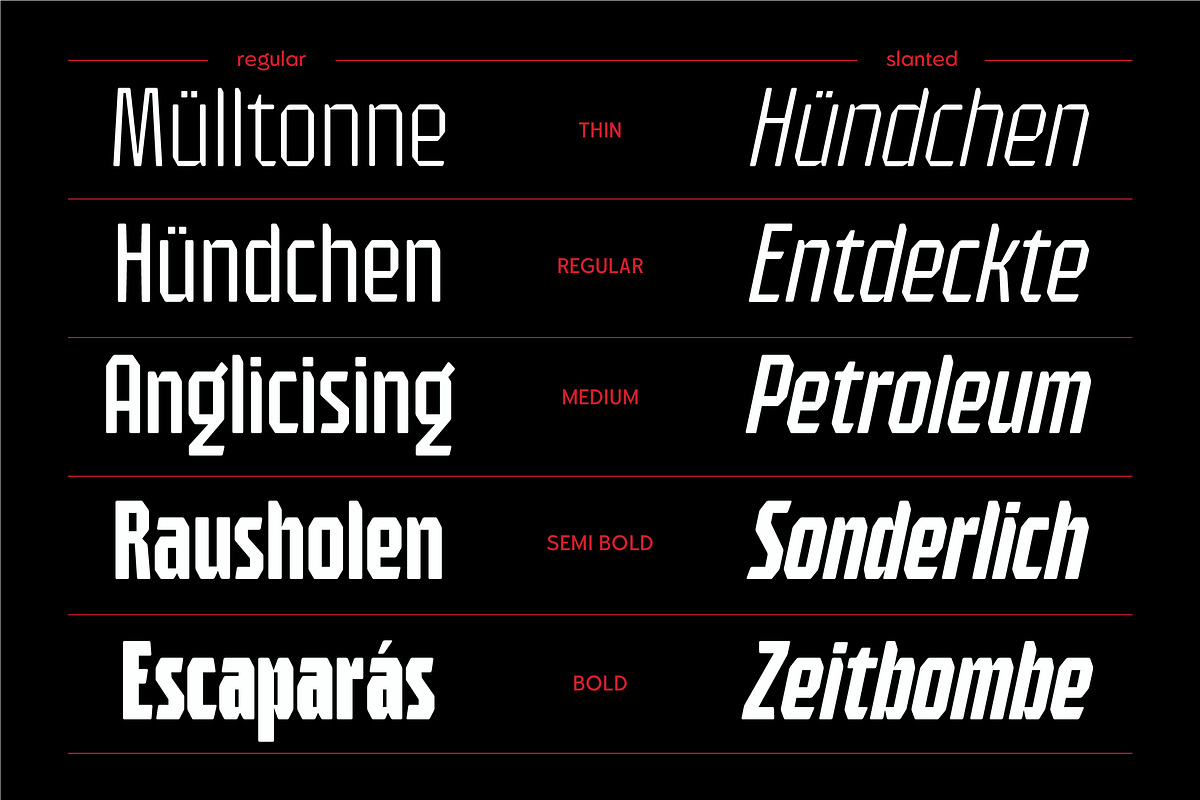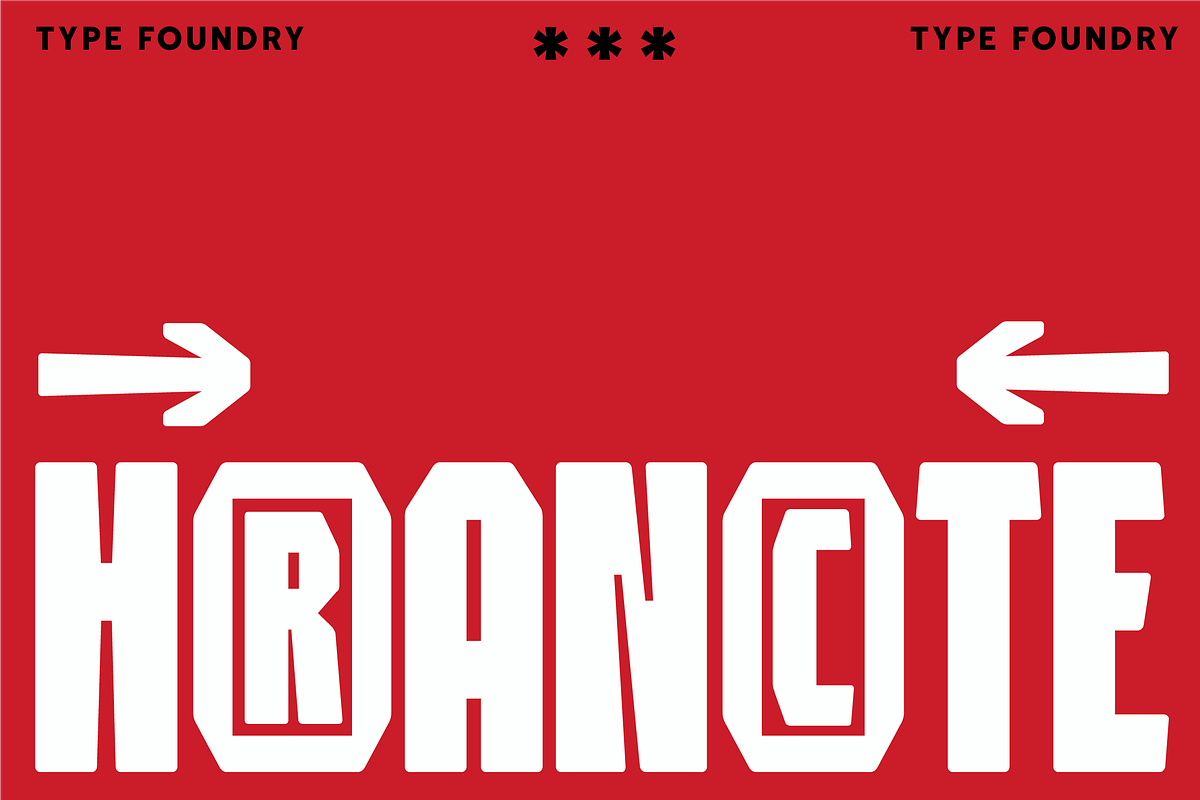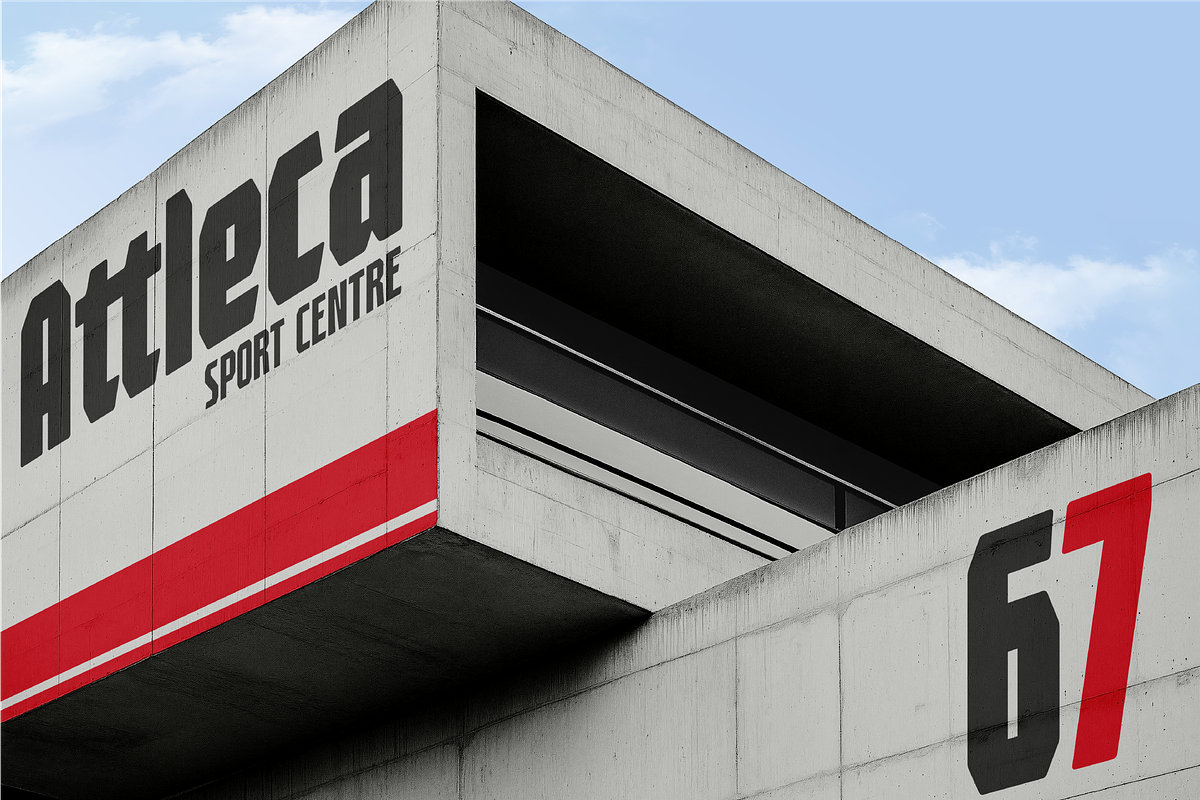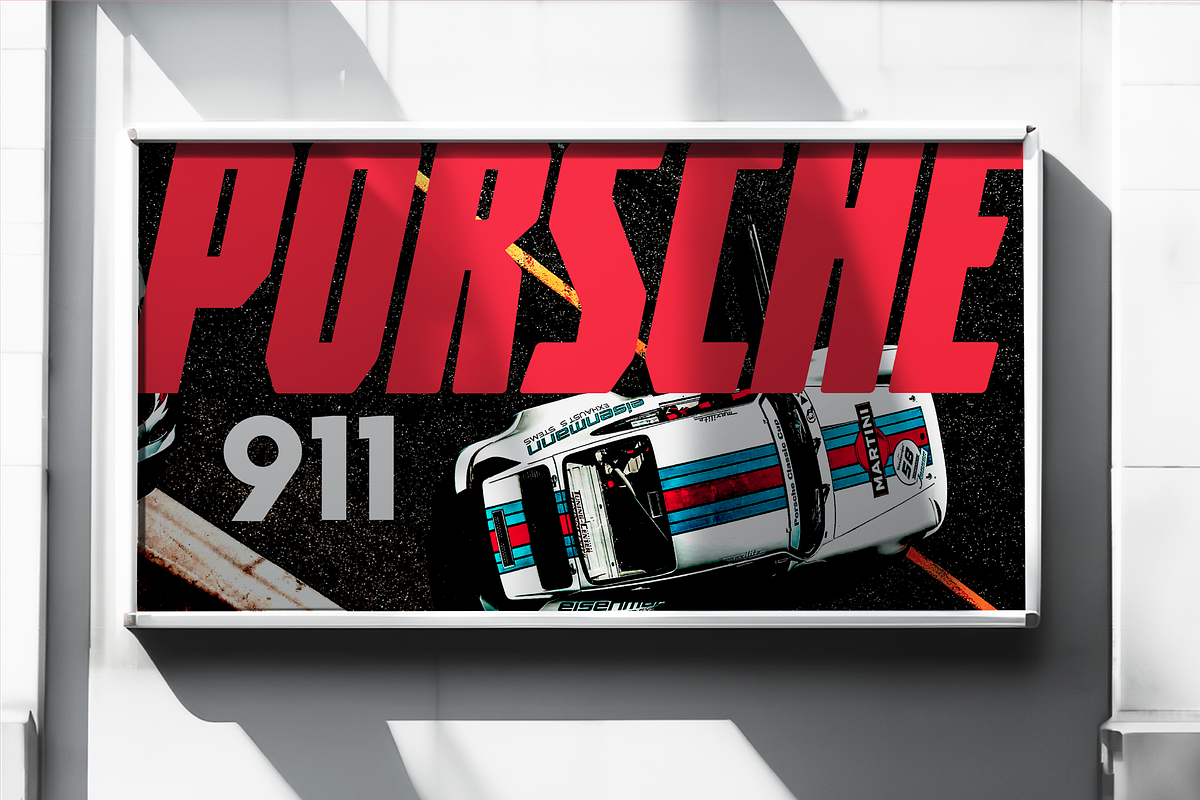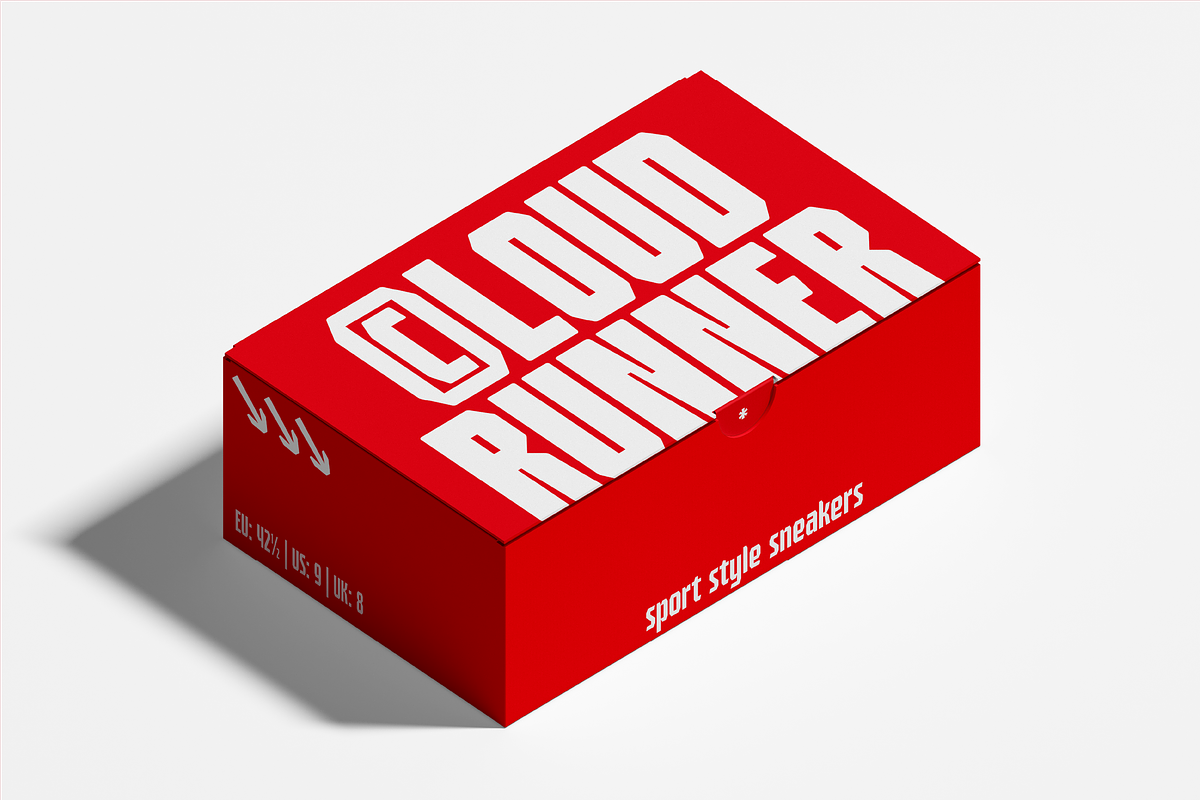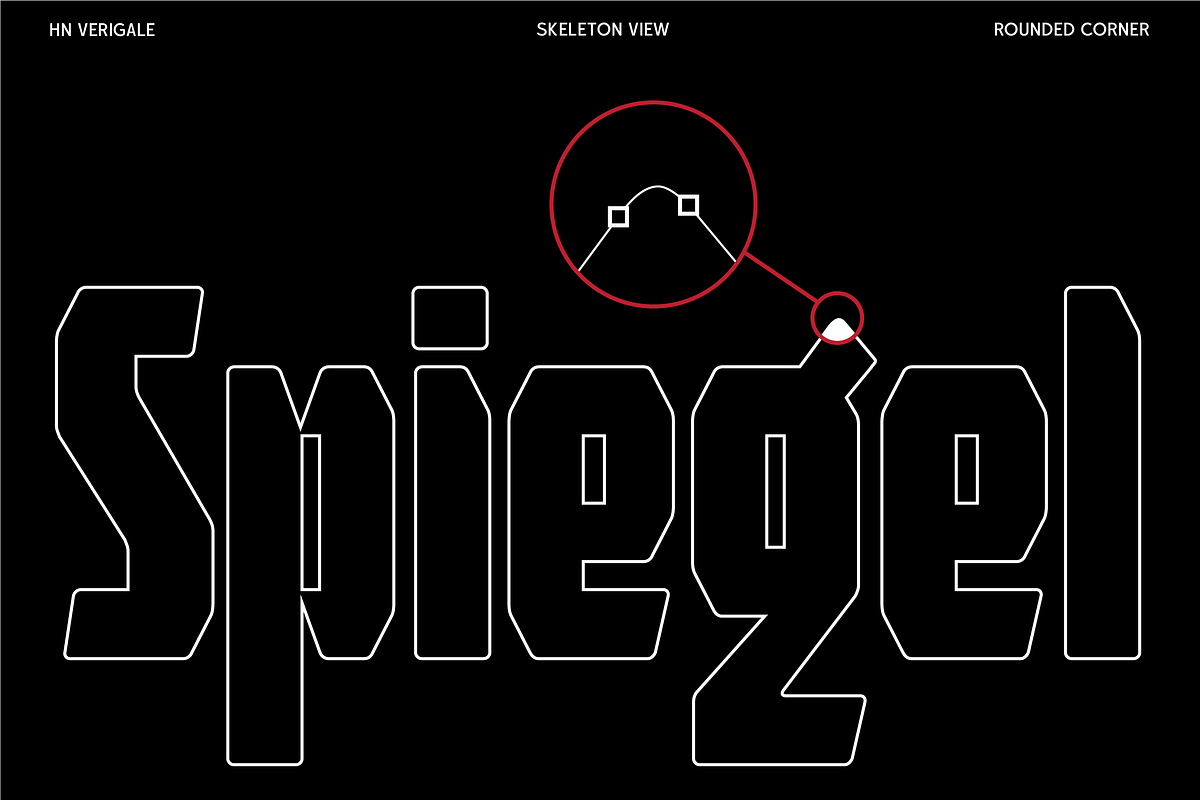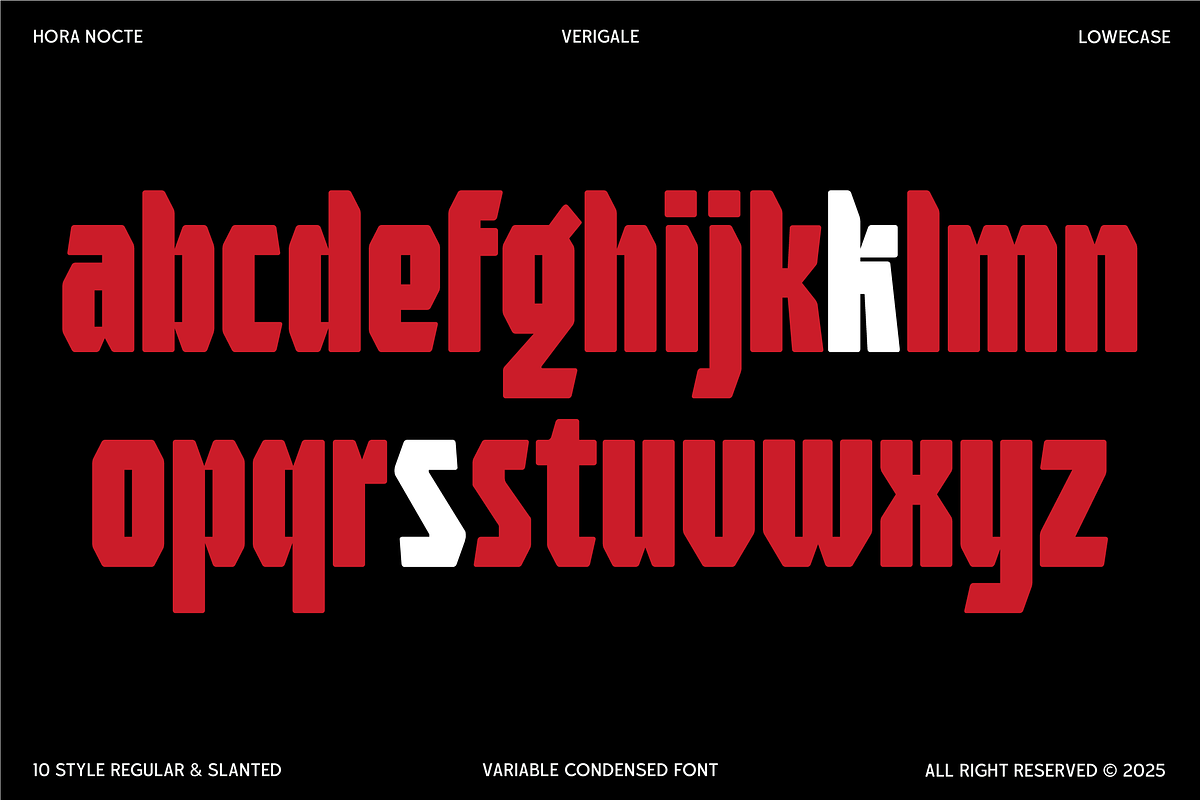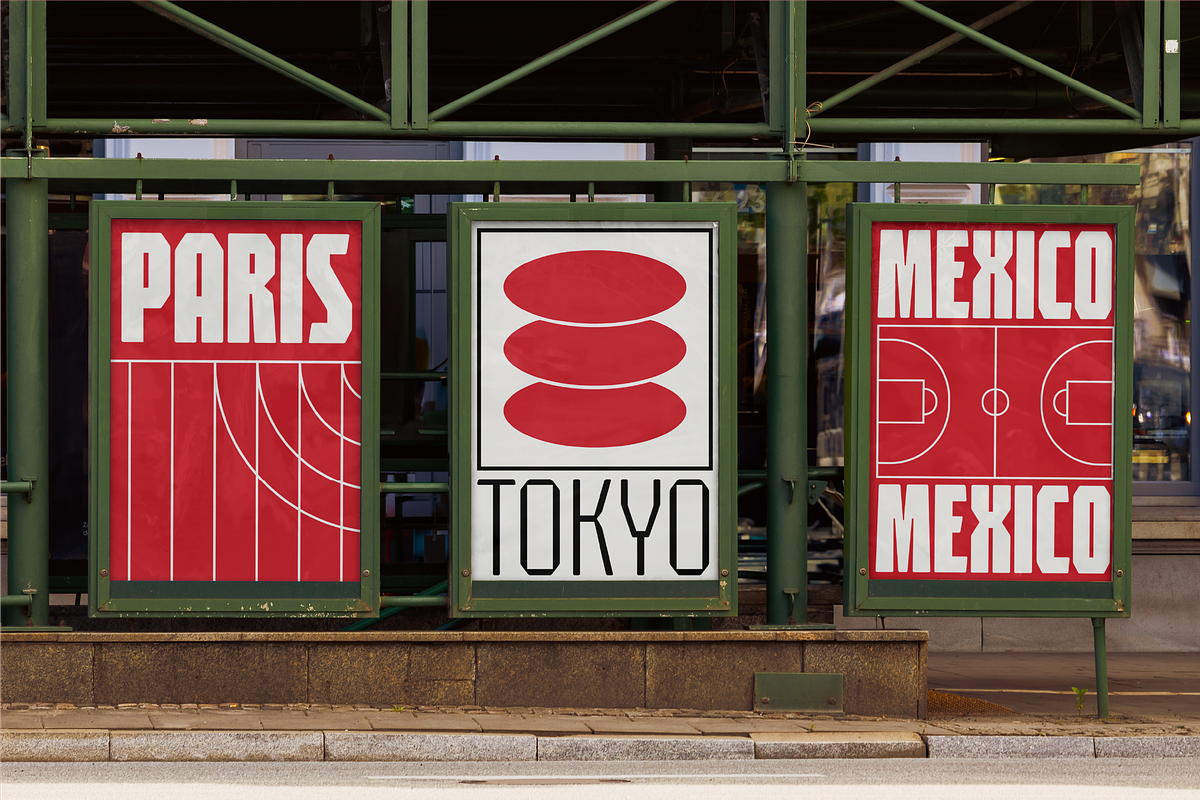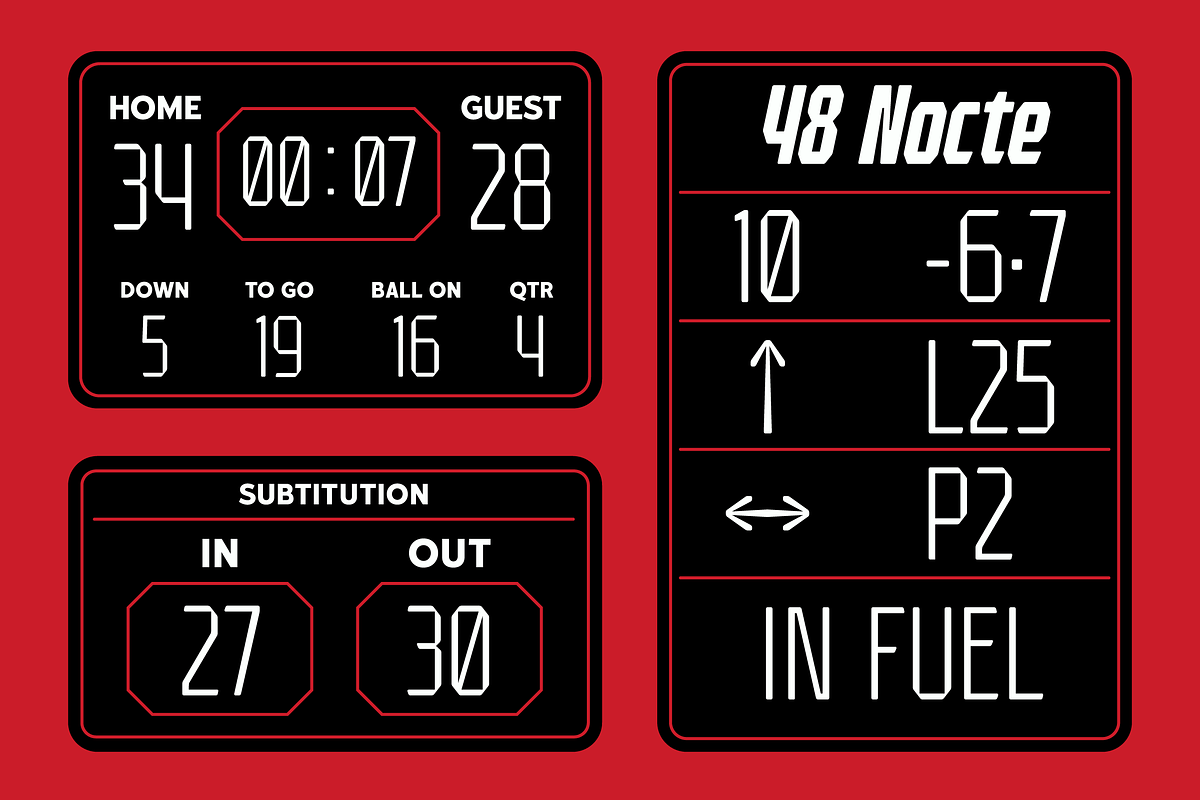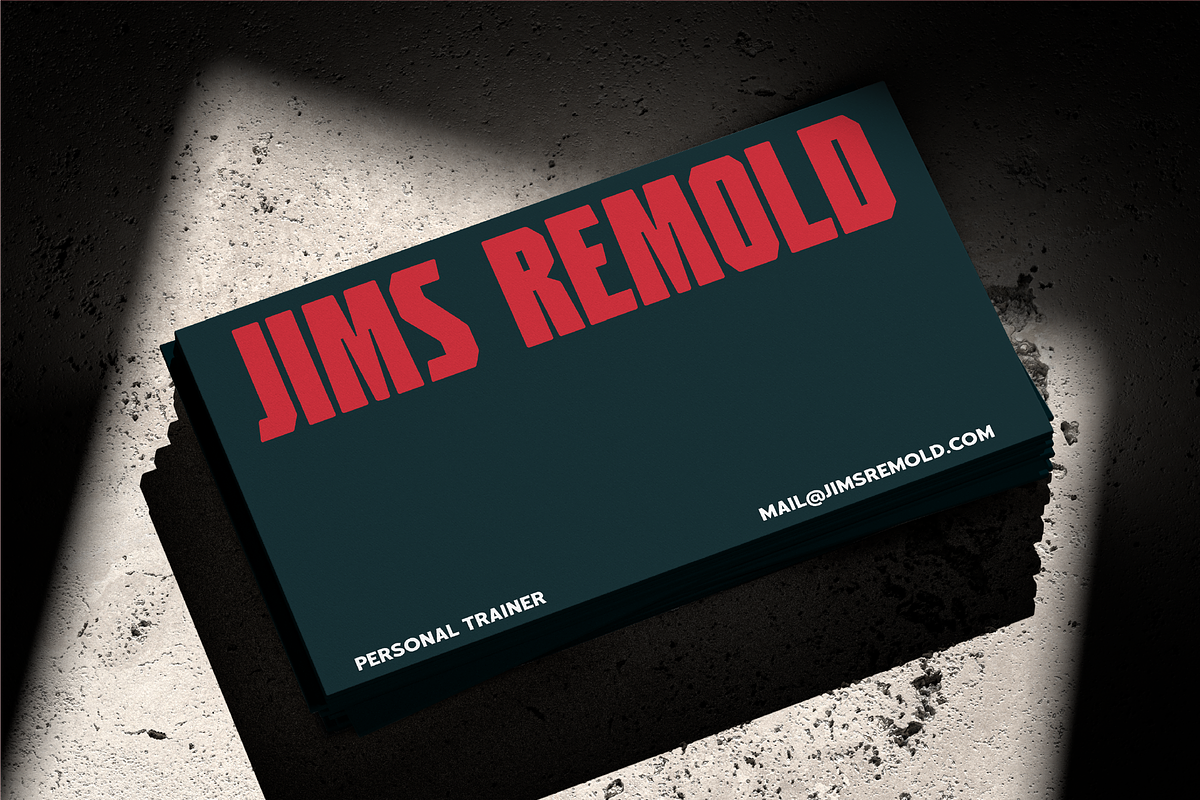
HN Verigale
HN Verigale: Sporty Condensed Sans Presence A variable, condensed sans-serif typeface with a sporty feel and a distinctive, modern design. Designed by hora nocte, it comes in both regular and slanted versions. Rigid geometric structures meet rounded corners, giving the letterforms a clear, confident rhythm while keeping them approachable on the page and on screen.
Its dynamic appearance suits eye-catching headlines, posters, branding, sports-related designs, and editorial layouts. Use it for a sleek logo system, a striking advertisement, or tight typographic compositions where space matters. HN Verigale reads cleanly at display sizes and brings a focused tone to contemporary design work.